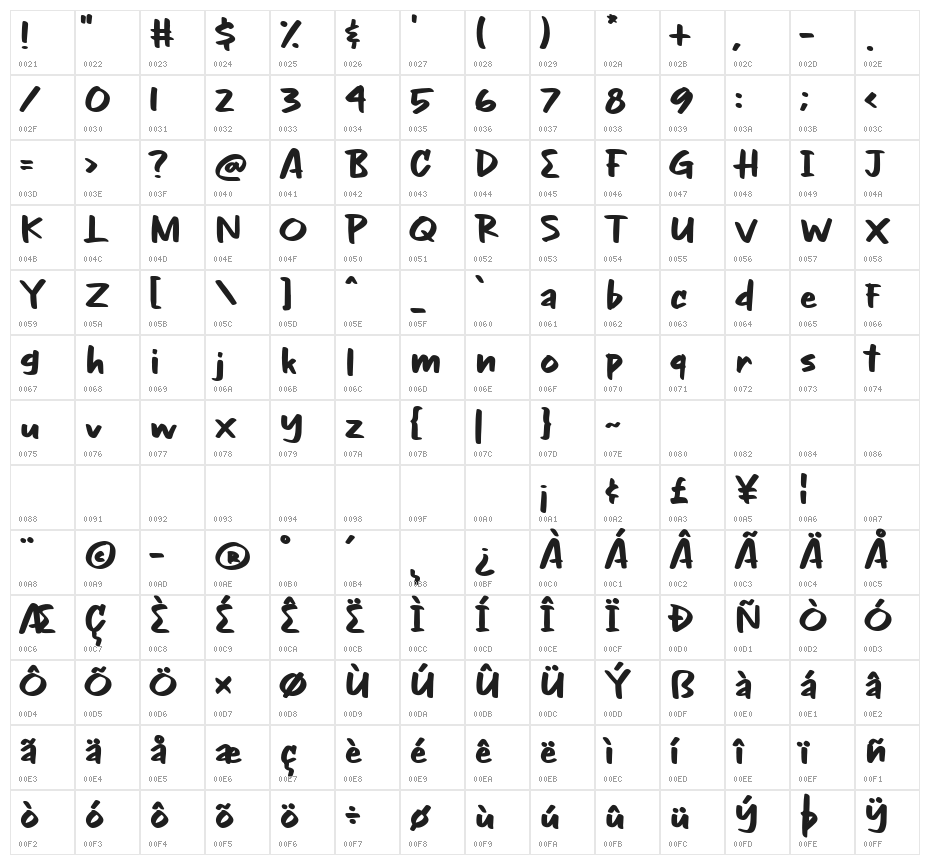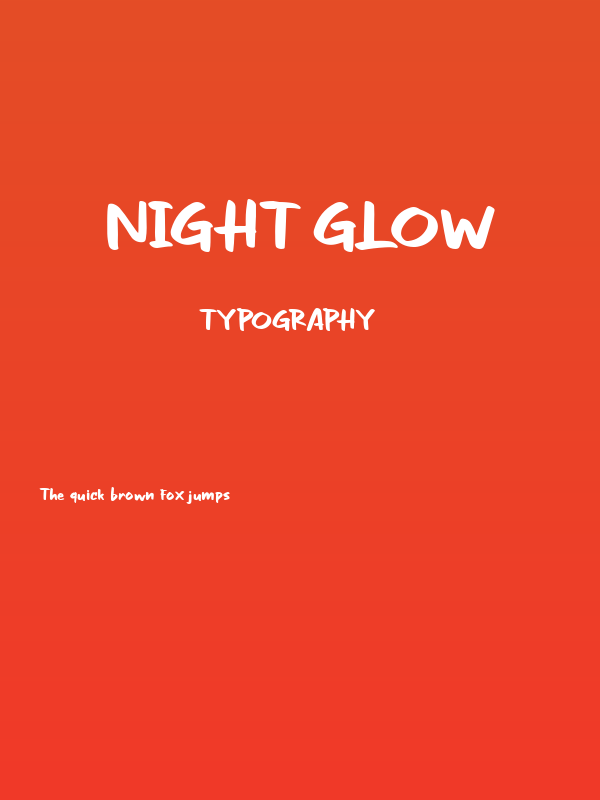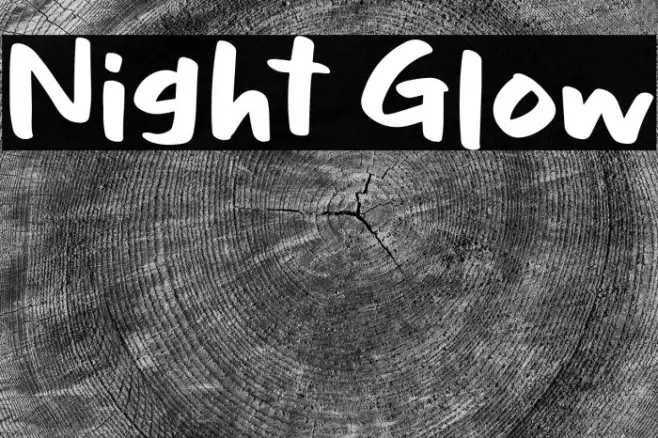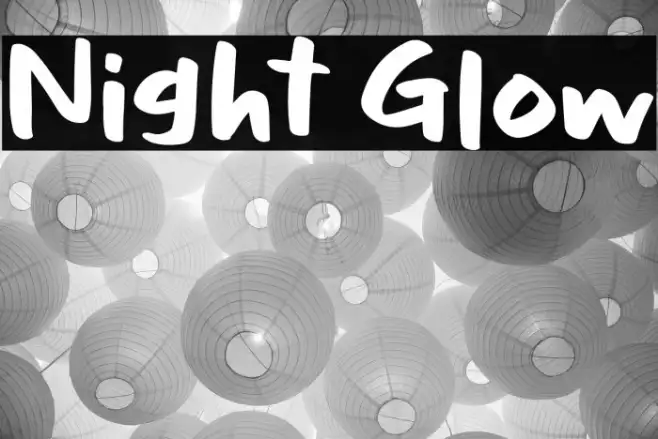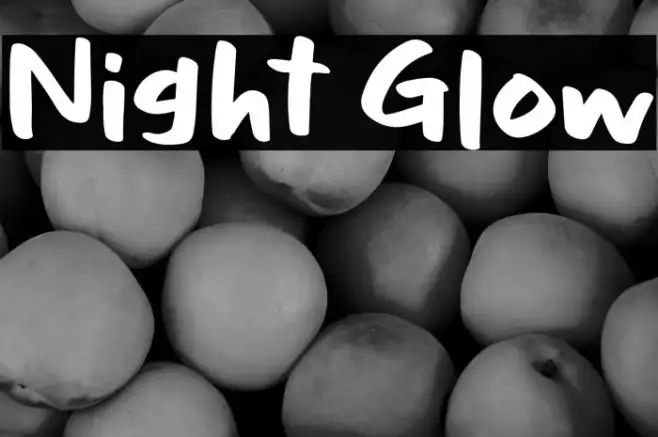
Night Glow Font
Night Glow Description
This font exudes a playful and energetic vibe with its bold, handwritten style. The characters are slightly slanted, adding a dynamic feel to the text. The strokes are thick and consistent, giving it a strong presence on the page. The letters are well-rounded and smooth, contributing to its approachable and friendly appearance. The spacing between characters is relatively tight, which enhances the compact and cohesive look of the text. This font is versatile and can be used in various creative projects where a casual and lively tone is desired.
| Proposed Projects | Ideal for greeting cards, posters, children's books, and social media graphics. |